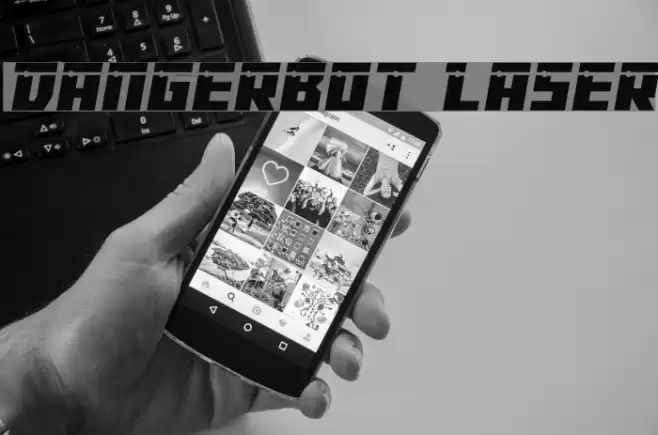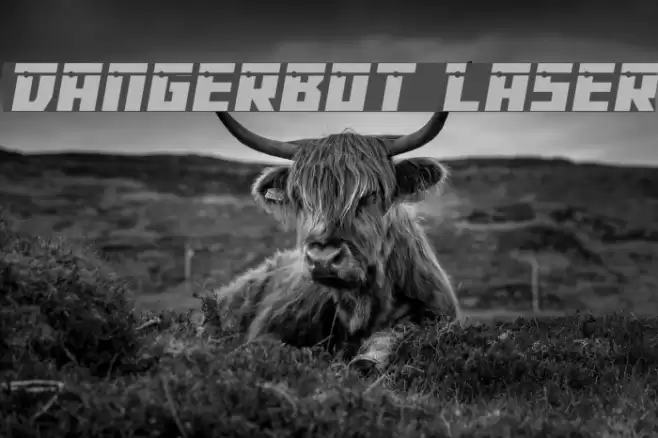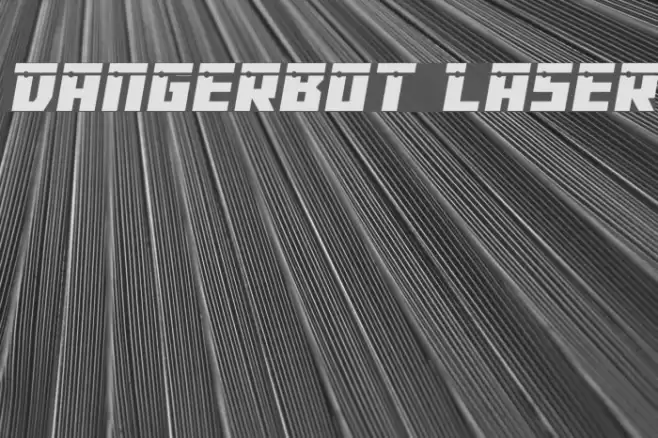
Dangerbot Laser Font
Dangerbot Laser Description
This font features a bold, futuristic design with sharp, angular edges and a distinct geometric style. The characters are heavily stylized, with a blocky appearance that conveys a sense of strength and modernity. The uppercase and lowercase letters maintain a consistent design, emphasizing uniformity and cohesion. The numbers and special characters follow the same aesthetic, ensuring a seamless integration across all text elements. This font's unique style makes it stand out, ideal for projects that require a bold and impactful visual presence.
A bold, futuristic font with sharp, angular edges and a geometric style from Sci-fi fonts.
- Proposed Projects: Ideal for sci-fi themed designs, video game titles, posters, and branding that requires a modern, edgy look.